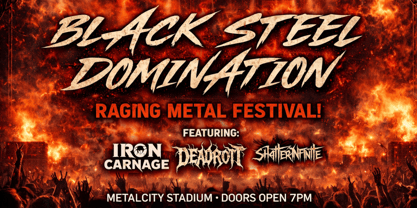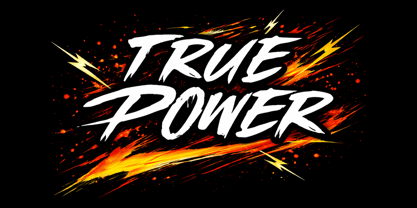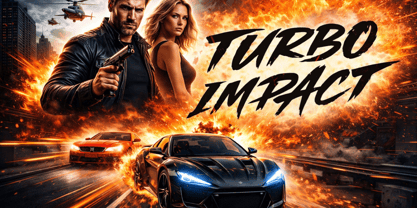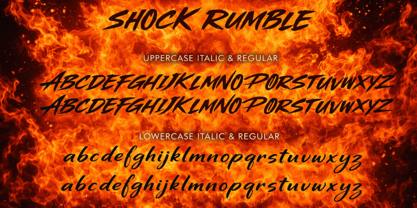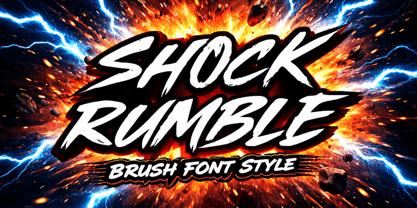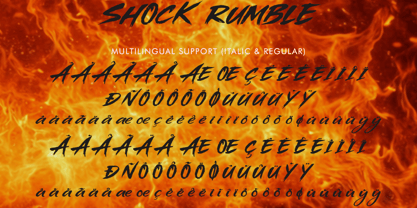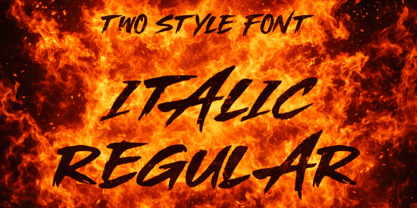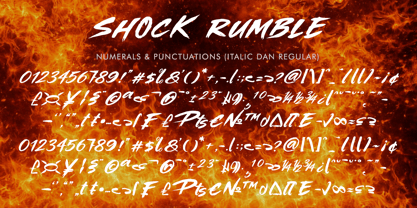
Shock Rumble Italic
The Shock Rumble Italic Font Family was designed by Isroni Yoga Prasetya and published by Yoga Letter. Shock Rumble Italic contains 2 styles and family package options. More about this family
"Shock Rumble" is a unique and elegant brush font. It features regular and italic styles, uppercase and lowercase letters, numerals, punctuations, and multilingual support. It's perfect for movie titles, metal concerts, advertisements, logos, stickers, tattoos, prints, banners, branding, social media, YouTube, speing, easter, business branding, and more.